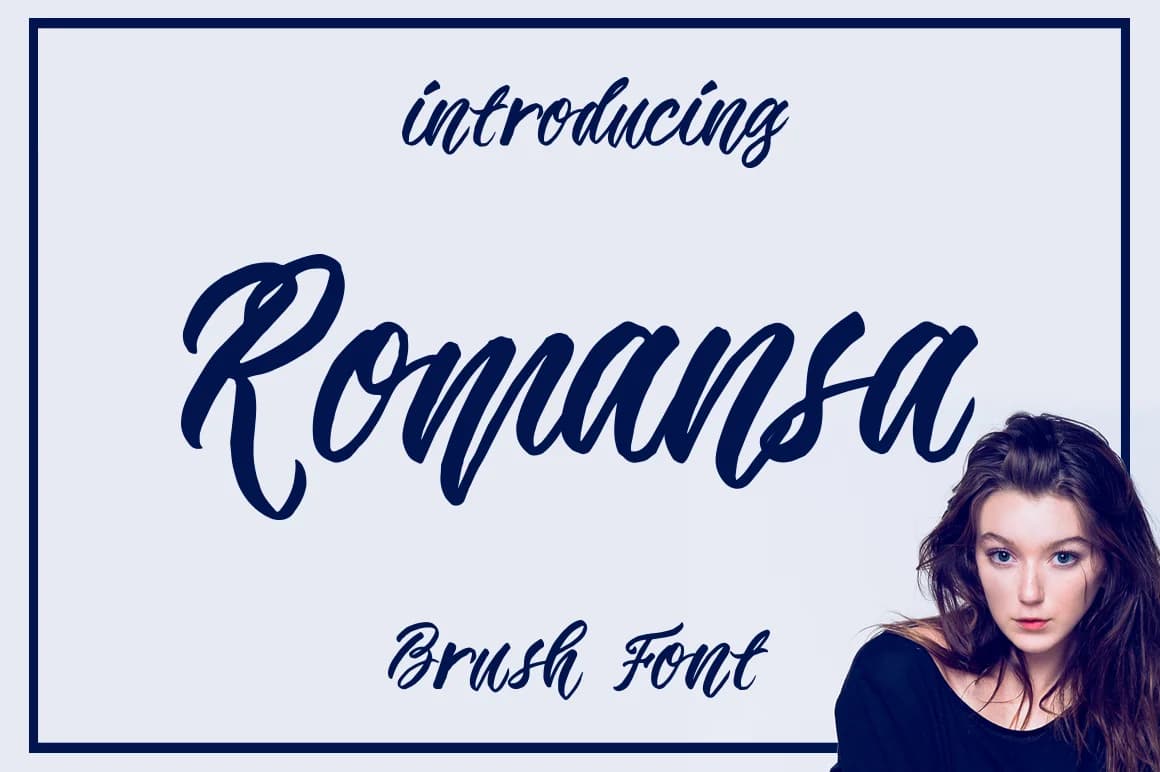
Romansa by masinong is a hand-brushed script typeface that brings authentic brush stroke character to contemporary design work. This flowing typeface captures the organic, natural movement of traditional hand lettering, making it an excellent choice for designers seeking genuine artistry and personality in their typography. The fluid strokes and graceful letterforms work beautifully across multiple applications, from digital to print.
This font shines in wedding stationery suites, where its refined brushwork brings sophistication to invitation design, save-the-date cards, and wedding menus with understated elegance. Beyond weddings, Romansa is ideal for creating custom greeting cards that feel personally handcrafted, boutique product packaging that demands a premium aesthetic, and hand-lettered signage for small creative businesses and independent studios. Whether you're designing personal correspondence, social media graphics, or brand identity materials for an artisanal business, the flowing rhythm of this script adapts gracefully to both formal ceremonies and casual everyday use.
Romansa Font is a script font that shines as a display or heading face. Pair it with a clean sans-serif or serif font for body text β the contrast creates a clear hierarchy while the two styles stay balanced and easy to read.